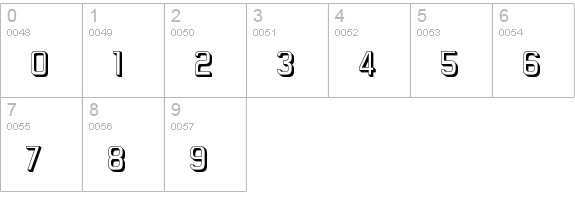
Forgotten Futurist Shadow font is a captivating display typeface that exudes a sense of mystery and intrigue. Its futuristic and shadowed design gives it a unique and edgy look, making it perfect for creating eye-catching headlines, posters, and branding materials. The font's sharp lines and geometric shapes evoke a sense of modernity and innovation, while its shadowed effect adds depth and dimension to any design. What makes Forgotten Futurist Shadow font even more appealing is that it is available for free download at FontsMarket.com. This means that you can easily access this stylish font and use it in your projects without any cost. Whether you're a designer looking to add a futuristic touch to your work or a creative looking for a font that stands out, Forgotten Futurist Shadow font is a great choice. Download it now and elevate your designs with its unique style and flair.